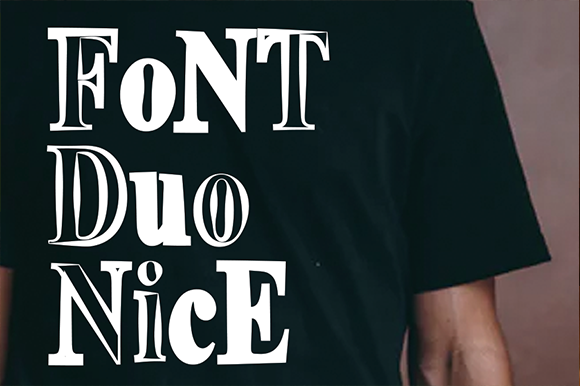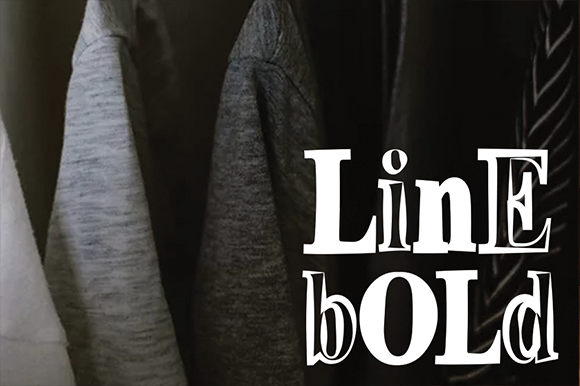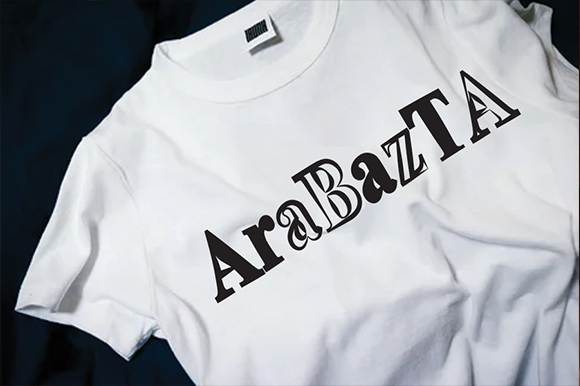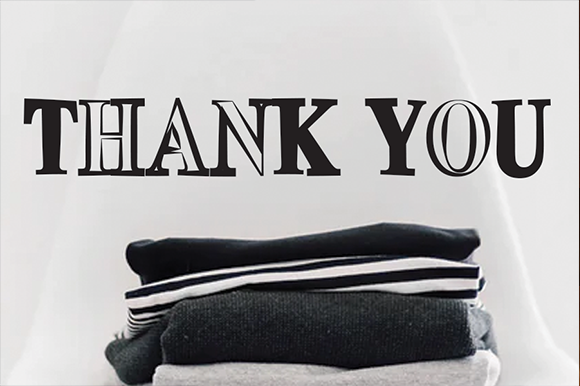
Introduction to SmaRtTshIrt Font
Have you ever had that moment where a burst of creativity strikes, and you can’t wait to bring your idea to life? Perhaps it’s a social media post, a logo for a new business, or a graphic for a friend’s project. Whatever it is, you know you need the right design resource to make it shine.
That’s where SmaRtTshIrt Font comes in – a delightful display font that embodies the perfect blend of fun, quirkiness, and authenticity. With its high-quality design and transparent background, this font is a valuable addition to any designer’s toolkit. Whether you’re working on a creative project or simply looking for a unique touch, SmaRtTshIrt Font is the perfect solution. And the best part? It’s available for free download, making it an accessible design resource for everyone.
Key Features of SmaRtTshIrt Font
- High-quality, professional font design suitable for creative projects
- Unique, modern design with a transparent background, perfect for overlaying on images
Honest Review: SmaRtTshIrt Font
As a designer, I’m always on the lookout for high-quality design resources to elevate my creative projects. Recently, I had the opportunity to try out the SmaRtTshIrt Font, and I’m excited to share my honest review.
- ✨ The font is a great addition to any modern design project, with a sleek and sophisticated look.
- ✨ The transparent background option makes it easy to use in a variety of design scenarios.
- ⚠️ The font is not as versatile as some other options, and may not be suitable for all types of projects.
- ⚠️ The font could benefit from more font sizes and styles to give designers more flexibility.
Overall, I’m impressed with the SmaRtTshIrt Font, but I think it has the potential to be even better. With a few tweaks, this font could be a top choice for designers looking for a high-quality, free design resource.
Tips for Getting the Most Out of SmaRtTshIrt Font
To get the most out of SmaRtTshIrt Font, use it in conjunction with other high-quality design resources. Experiment with different font sizes, colors, and combinations to create unique and eye-catching designs.
SmaRtTshIrt Font is ideal for creative projects such as logos, icons, graphics, presentations, reports, and documents. Its high-quality design and transparent background make it a versatile design resource for any project.